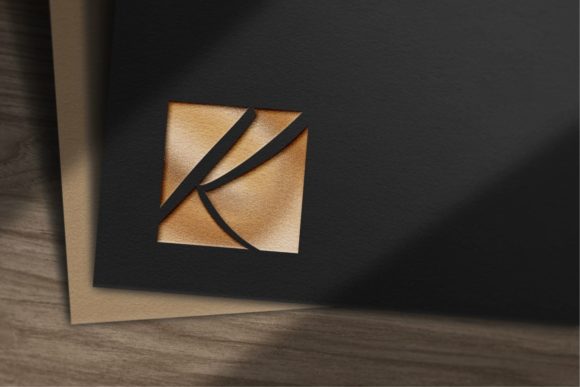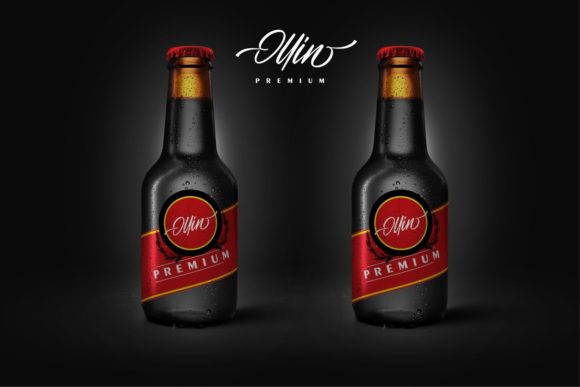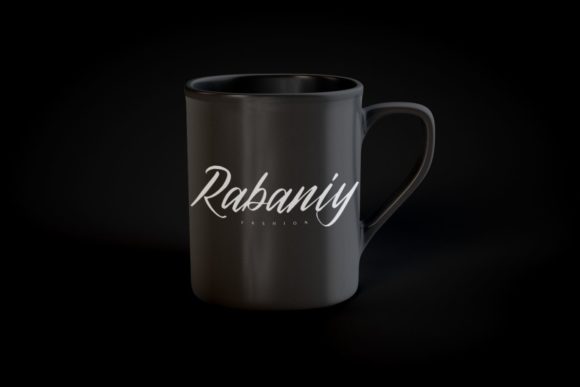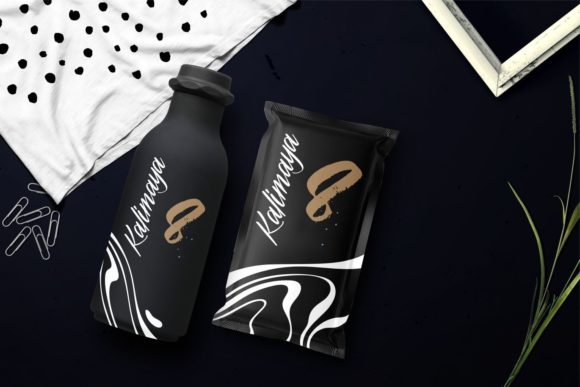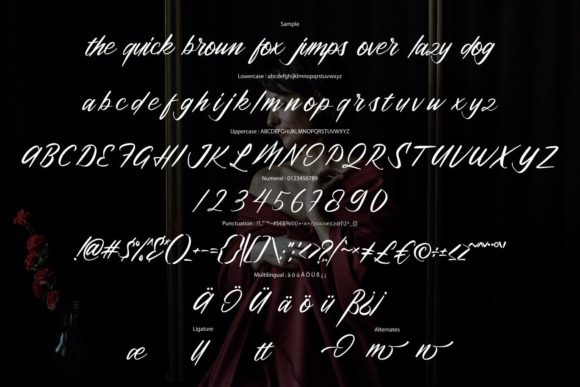
Introduction to Ollimtian Font
Have you ever found yourself scribbling down a heartfelt message in a beautiful handwritten font, only to realize it perfectly captures the essence of your creative project? That’s the magic of the Ollimtian Font, a stunning script font that adds a touch of romance and whimsy to any design.
As a designer, you’re always on the lookout for that perfect design resource to elevate your work. The Ollimtian Font is an exceptional find, offering a wide range of applications, from greeting cards to headlines, and even perfect for designs that require a transparent background.
What sets Ollimtian apart is its high-quality design, making it a valuable asset for designers who crave unique and eye-catching typography. And the best part? This gorgeous font is available for free download, making it a must-have in every designer’s toolkit.
- High-quality design resource for creative projects, featuring a unique and stylish aesthetic.
- Transparent background option allows for seamless integration into various design elements and backgrounds.
- Unique characteristics include a bold and modern design, making it perfect for headings, titles, and other prominent text elements.
- Supports multiple languages, including Latin, Cyrillic, and Greek alphabets, making it a versatile design resource.
Honest Review: Ollimtian Font
I recently had the opportunity to work with the Ollimtian Font for a creative project, and I must say it’s been a pleasant experience. The font is a great design resource that can add a touch of elegance to any project.
What works well with the Ollimtian Font is its versatility. It’s perfect for use in a variety of creative projects, from logos to typography-based artwork. The font also comes in a transparent background option, which is a huge plus for designers who want more control over their design’s background.
- ✨ Versatile font that can be used in a variety of contexts
- ✨ Transparent background option for added design control
Overall, I’m impressed with the Ollimtian Font and would recommend it to designers looking for a high-quality, free design resource.
Using Ollimtian Font in Creative Projects
Tips for Getting the Most Out of Ollimtian Font
To get the most out of the Ollimtian Font, use it in conjunction with a transparent background to create a clean and modern look. You can also experiment with different font sizes and styles to add visual interest to your design.
Common Use Cases for Ollimtian Font
The Ollimtian Font is a versatile design resource that can be used in a variety of applications, including business cards, brochures, and website headers. Its high-quality design and transparent background make it an ideal choice for creating professional-looking designs.
Comparison: While Ollimtian Font has a unique, hand-drawn feel, Fontin Sans offers a more straightforward, sans-serif design that’s perfect for projects where readability is key.
Lato is a high-quality, sans-serif font that’s perfect for use in a variety of creative projects. It’s a great choice for designers who need a font with a transparent background and a clean, modern look. Lato is a great alternative to Ollimtian Font when you need a font that’s both stylish and professional.
Yes, the Ollimtian Font is designed to be high-quality and suitable for high-resolution printing. The font includes a transparent background, making it ideal for use in design projects where a clear background is required.